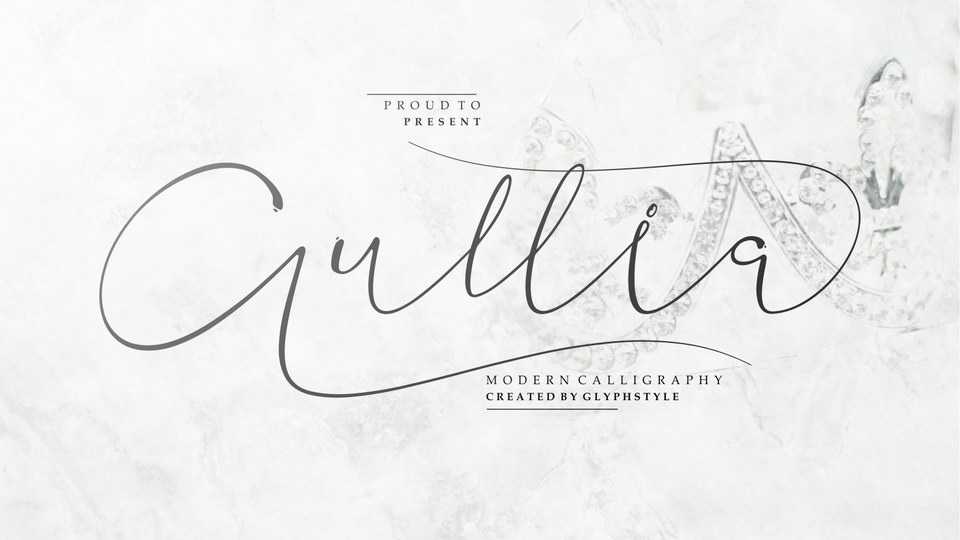
Download Aullia font, a modern calligraphy typeface, with a consistency of very luxurious looking letters. Aullia is a beautiful and luxurious fonts for weddings, cosmetic product, photography logo, magazine, business cards and more.